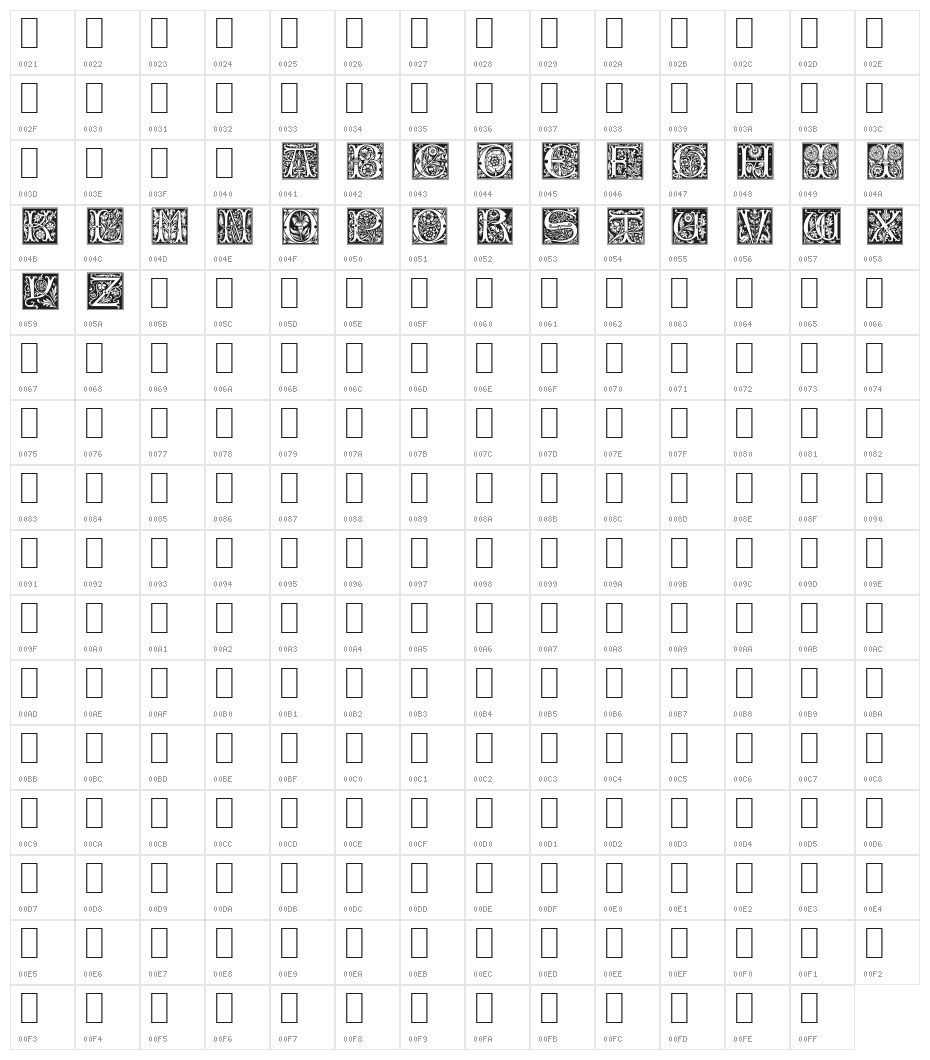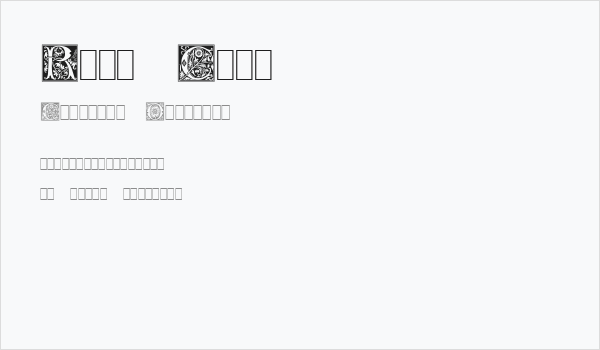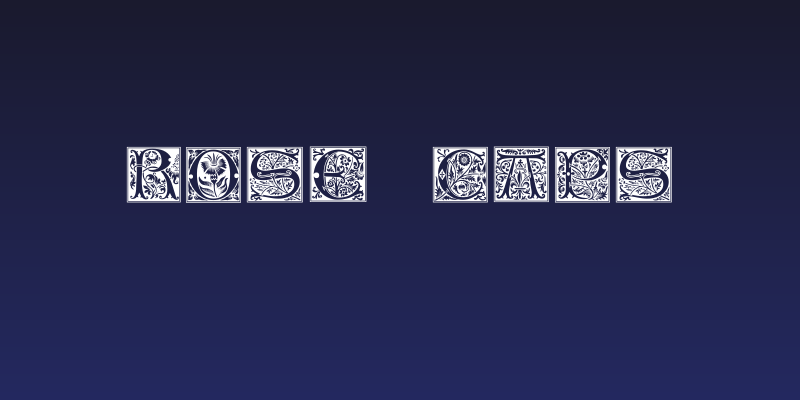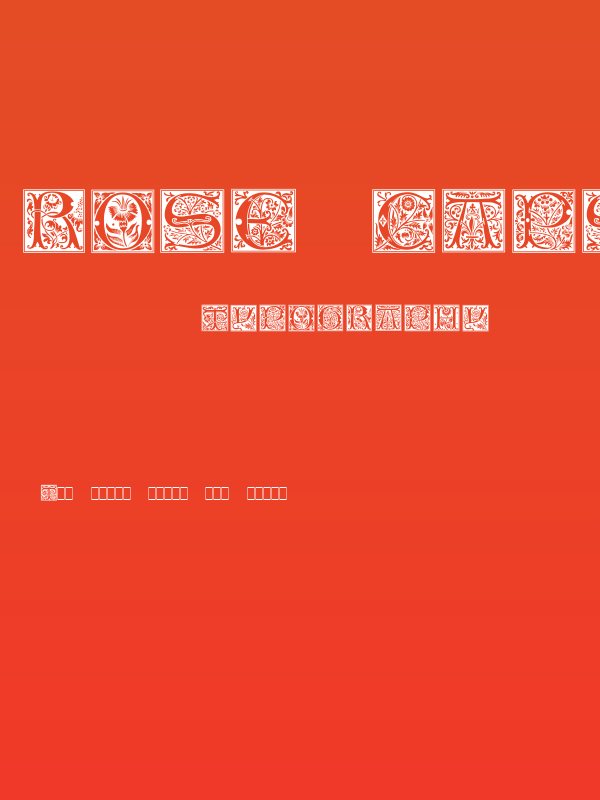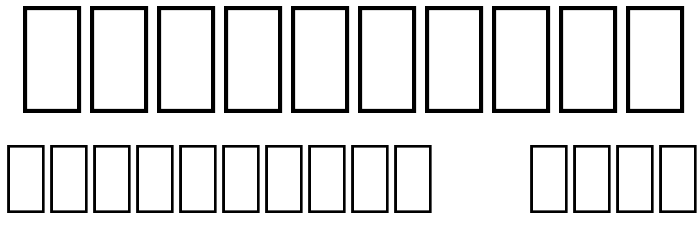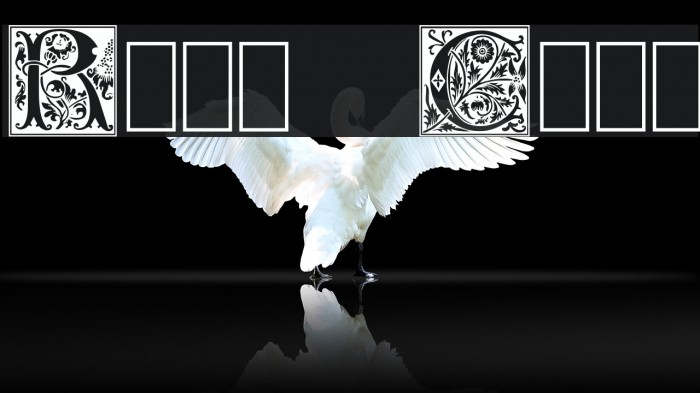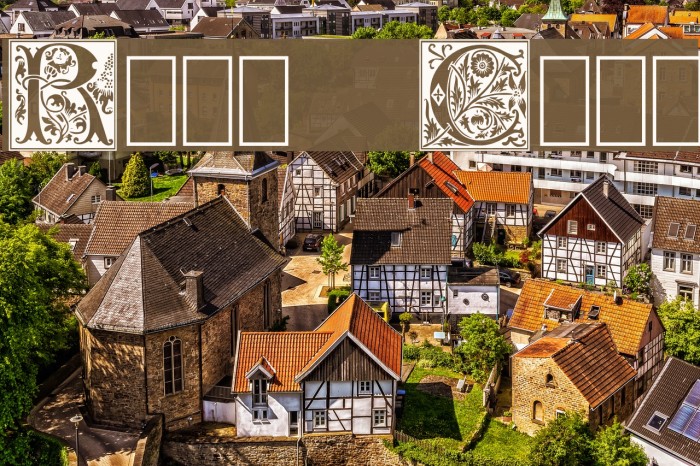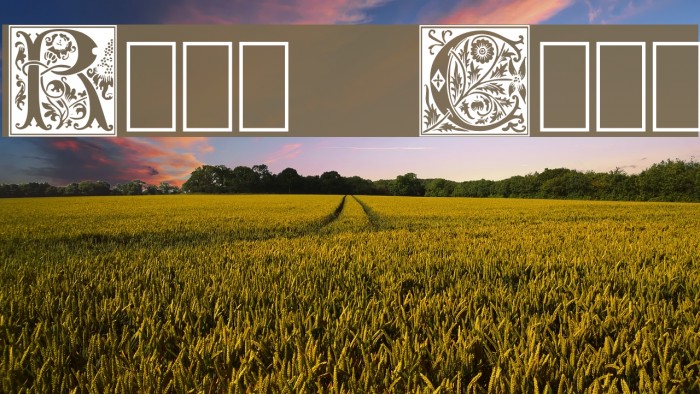
Rose Caps Font
Rose Caps Description
This decorative font features intricately designed uppercase letters, each enclosed within a square frame. The letters are adorned with elaborate floral and vine motifs, creating a highly ornamental and artistic appearance. The style is reminiscent of vintage or classical designs, often seen in historical manuscripts or decorative prints. The detailed embellishments make each letter a standalone piece of art, suitable for projects that require a touch of elegance and sophistication. The absence of lowercase letters, numbers, and special characters suggests a focus on decorative applications rather than functional text use.
| Overall Style | Vintage |
| Use Case | Logos, Headlines, Decorative purposes |
| Proposed Projects | Ideal for wedding invitations, vintage-themed posters, decorative book covers, or any project requiring a touch of classical elegance. |